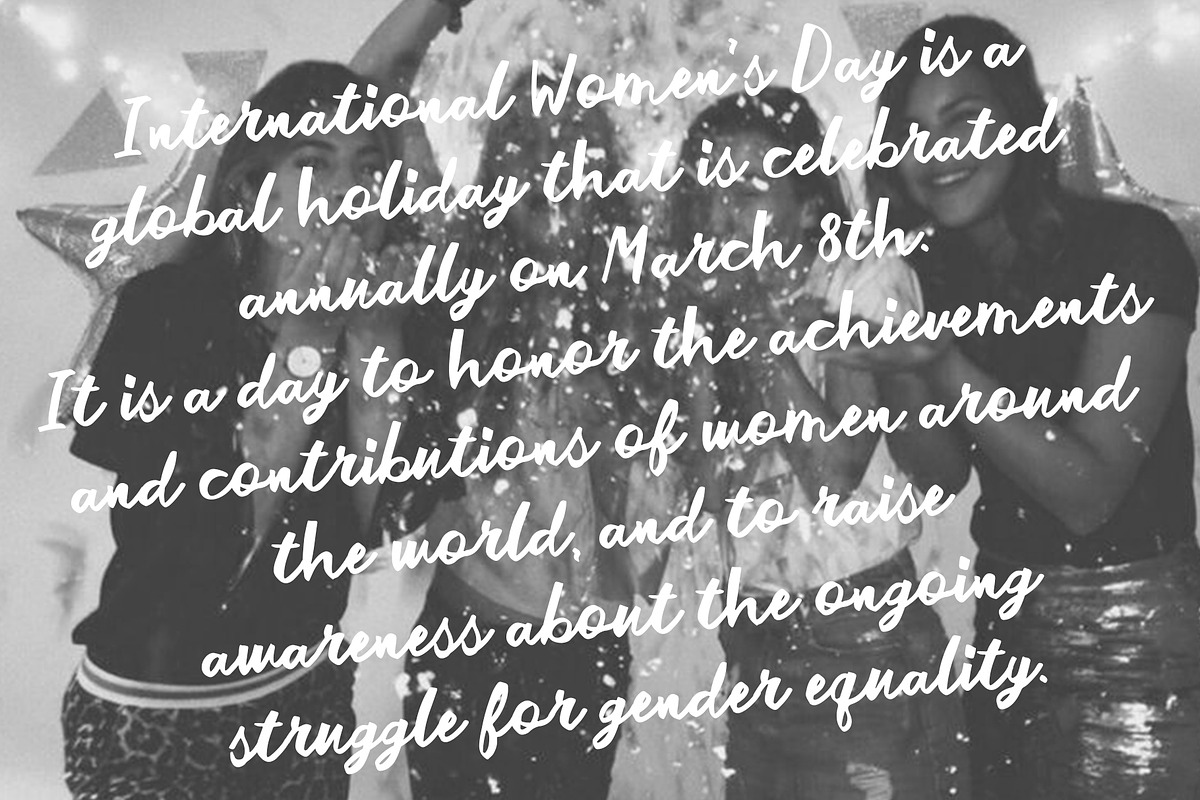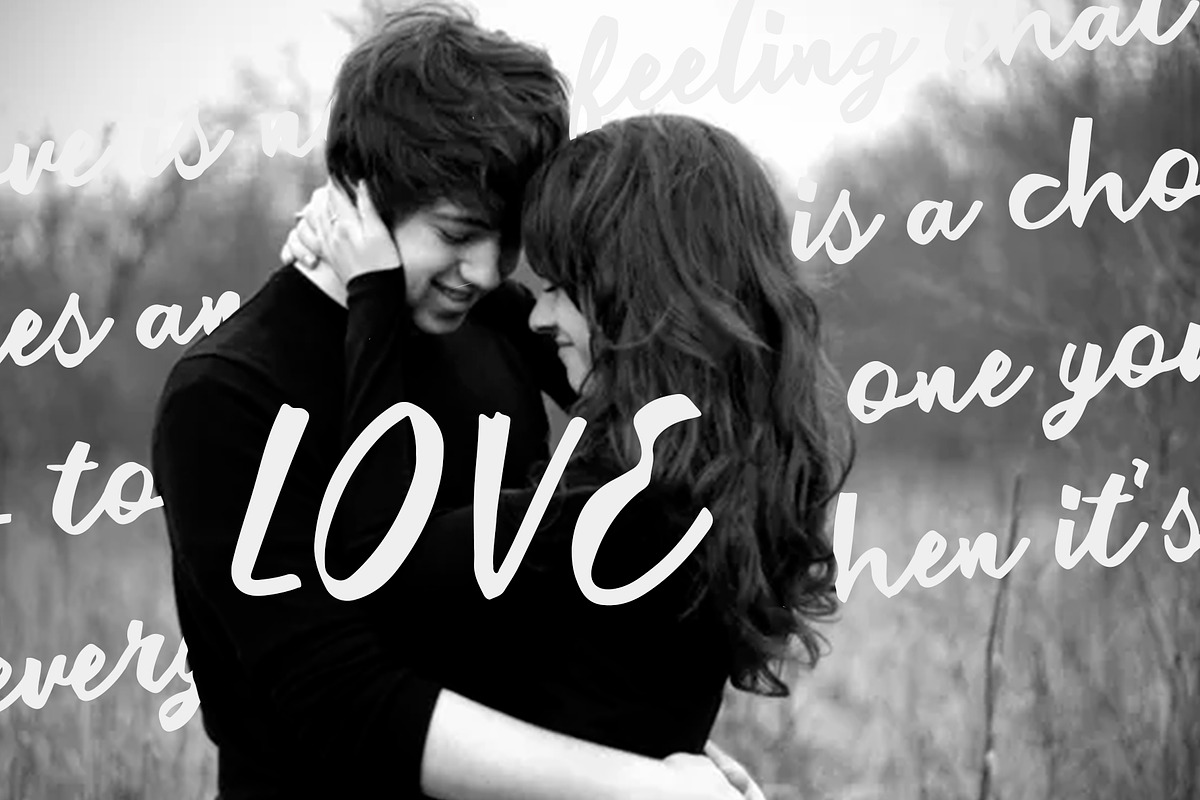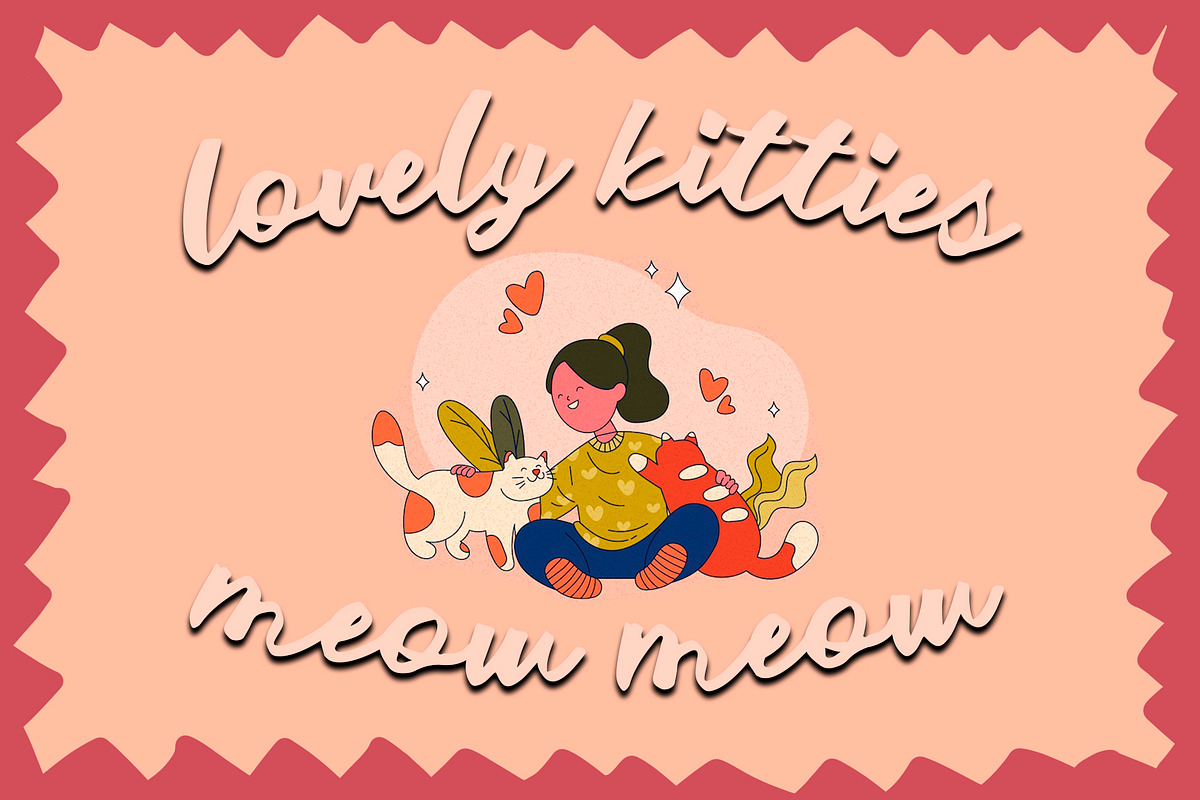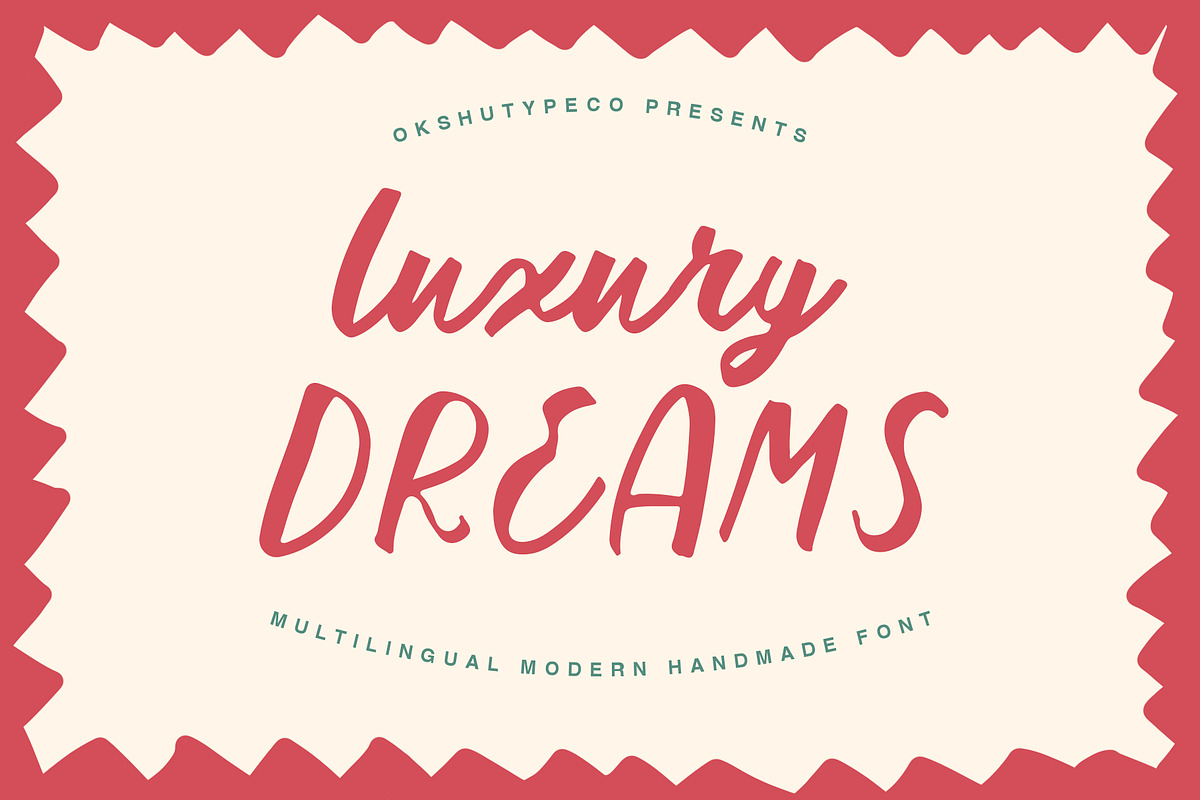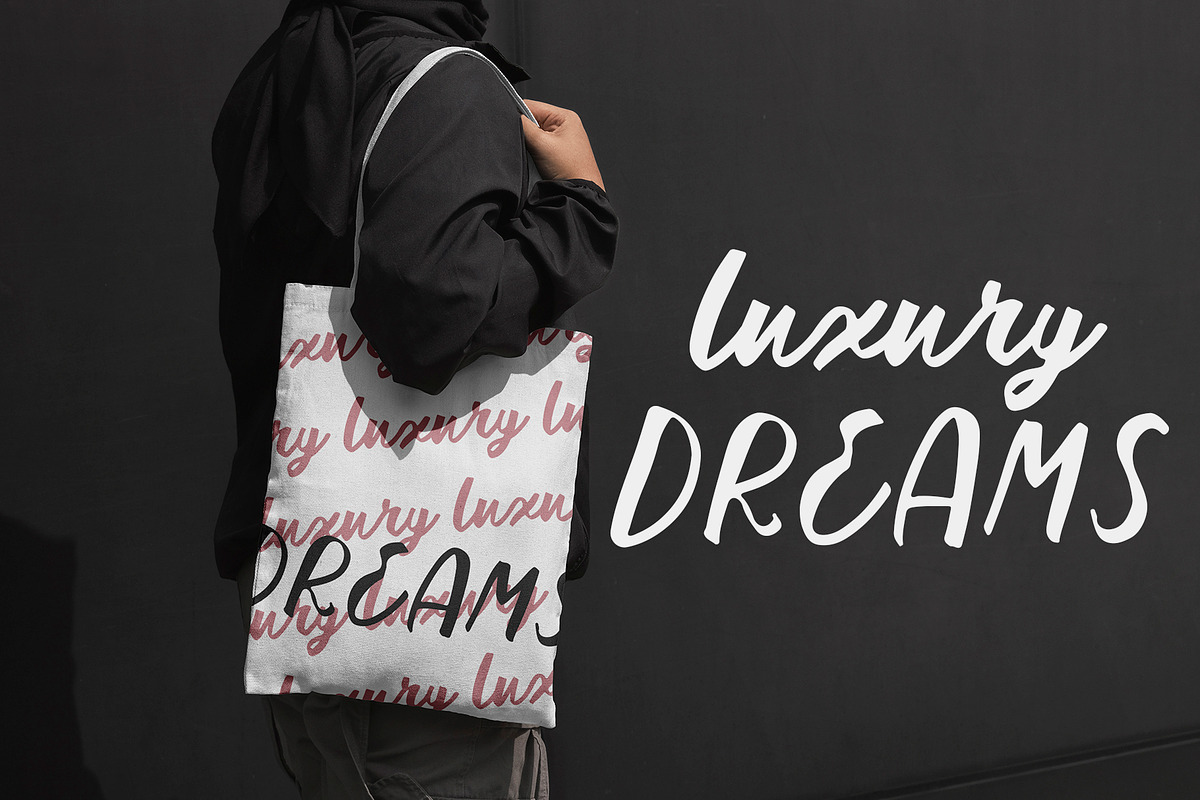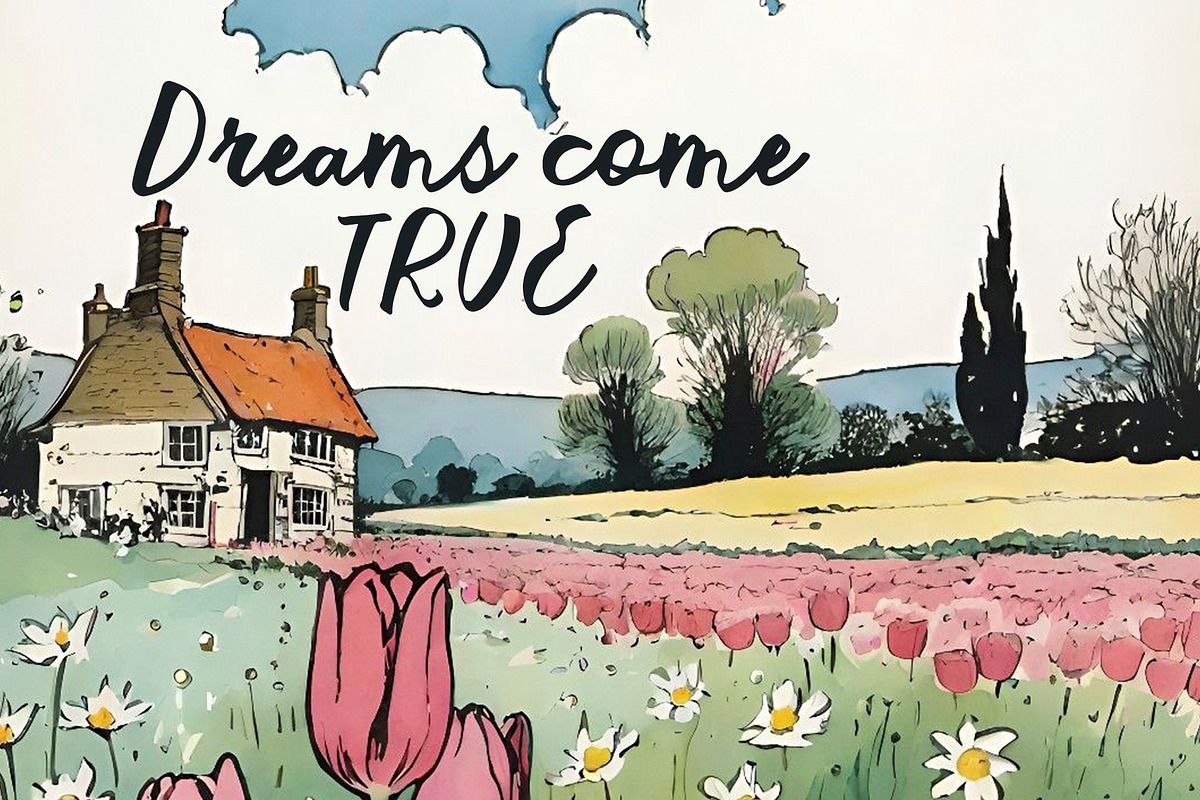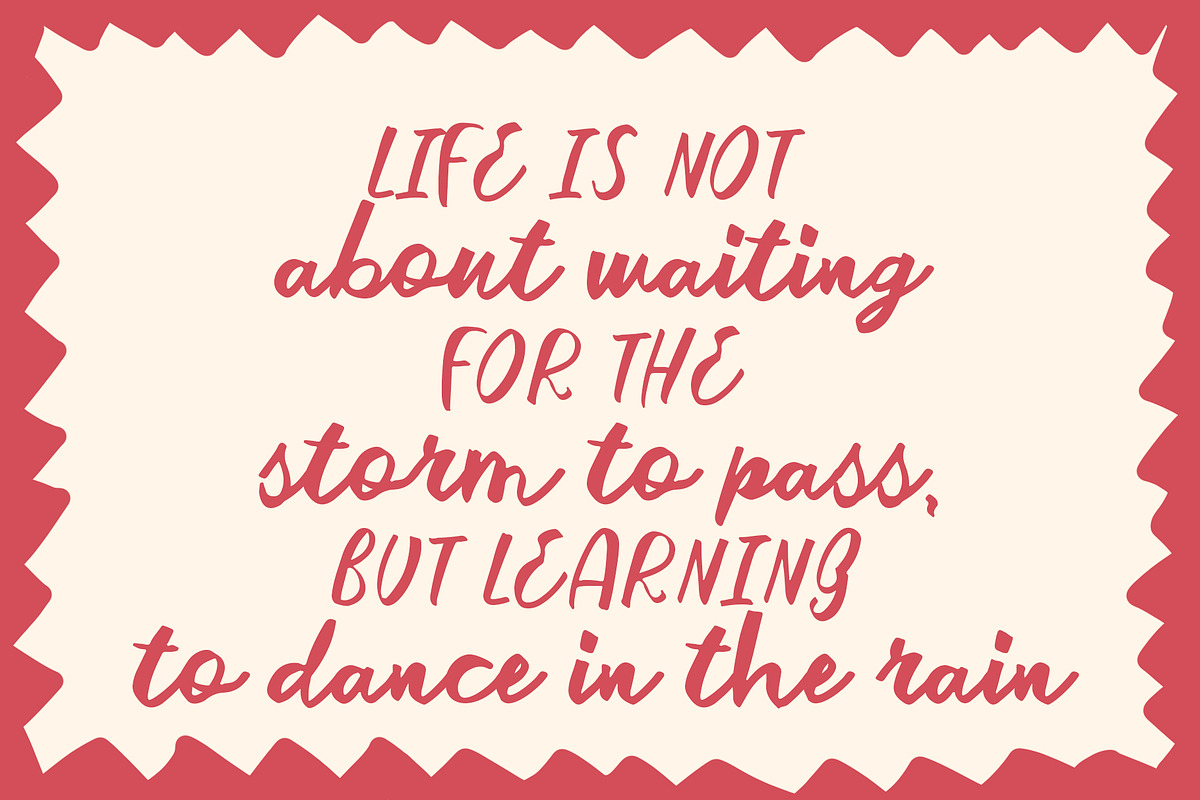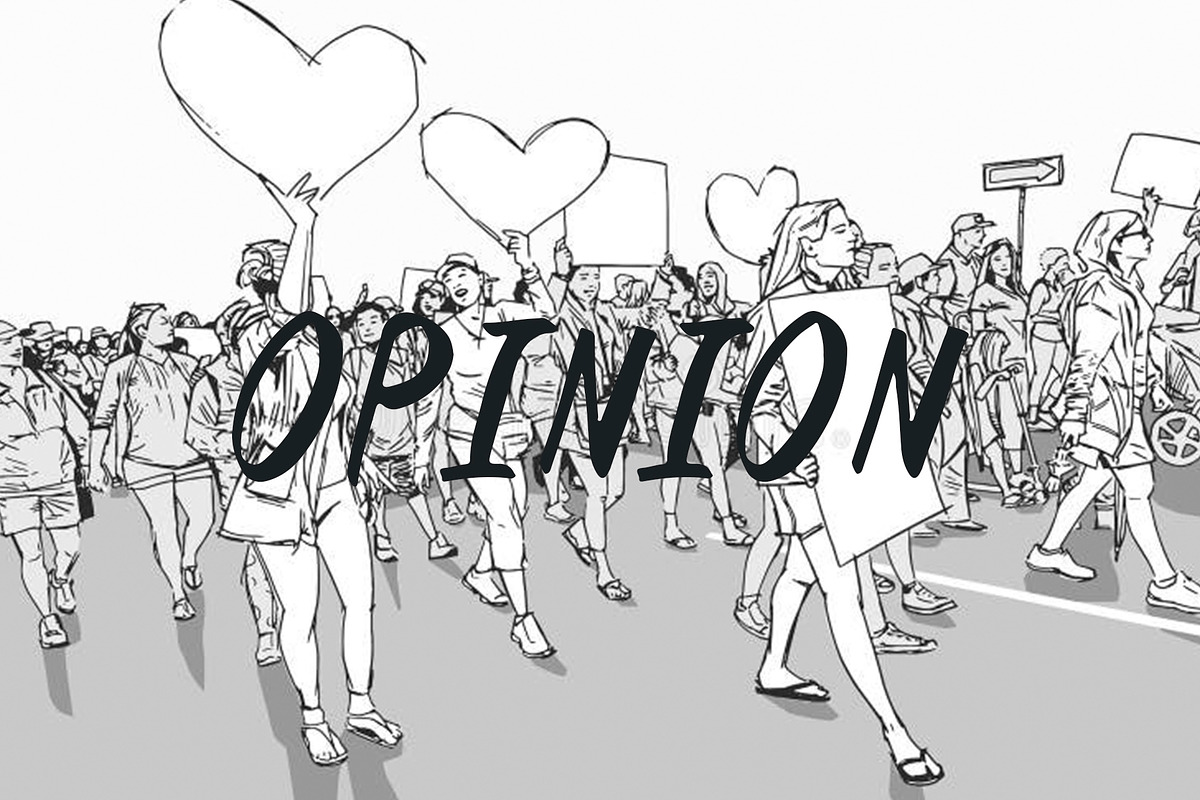
LuxuryDreams
LuxuryDreams - a new fresh handmade calligraphy font.
Very suitable for greeting cards, branding materials, business cards, quotes, posters, and more!This font are perfect for wedding postcard. Or you can create perfect and unique design of your logo, blog, stationery, marketing, magazines and more :)